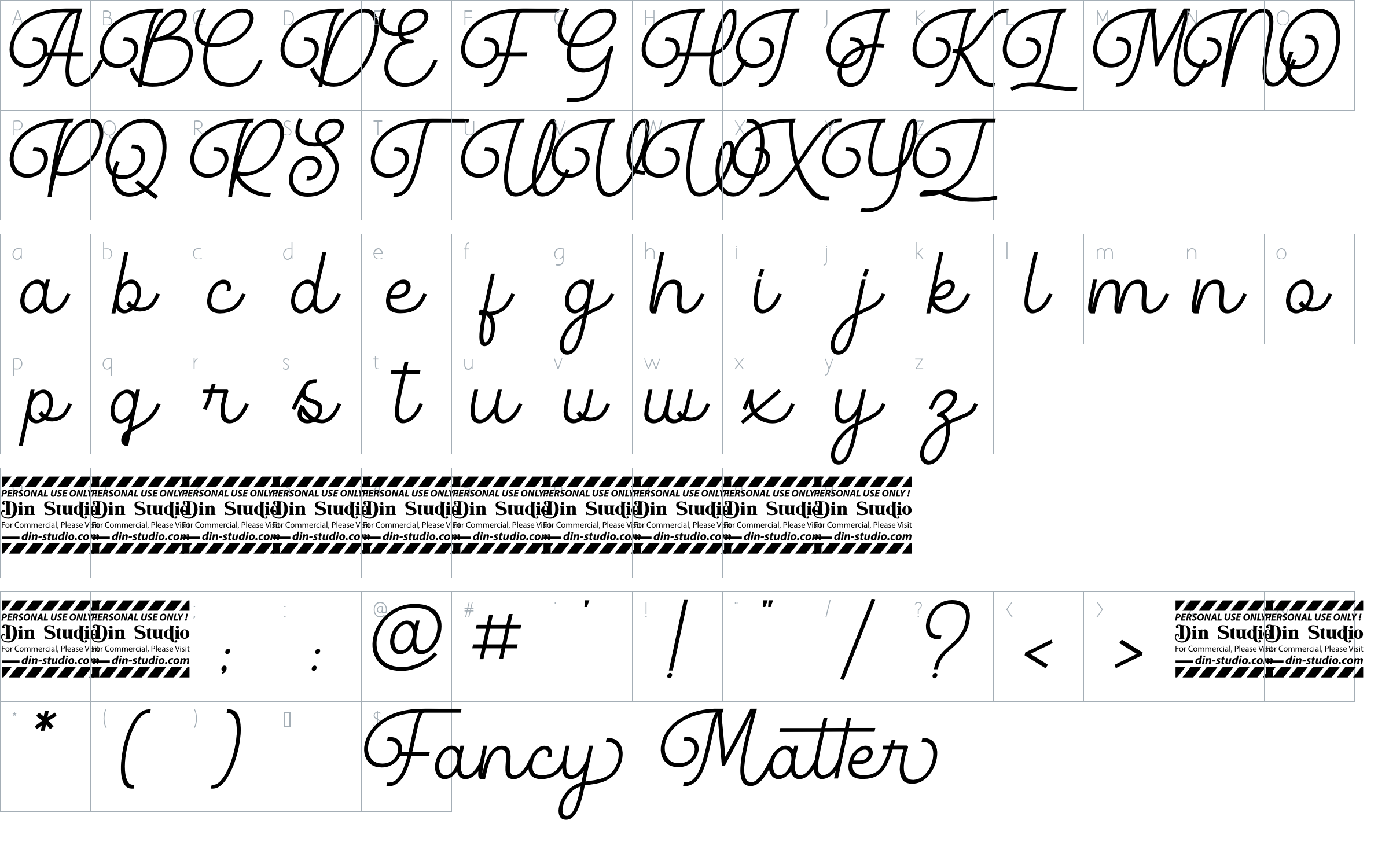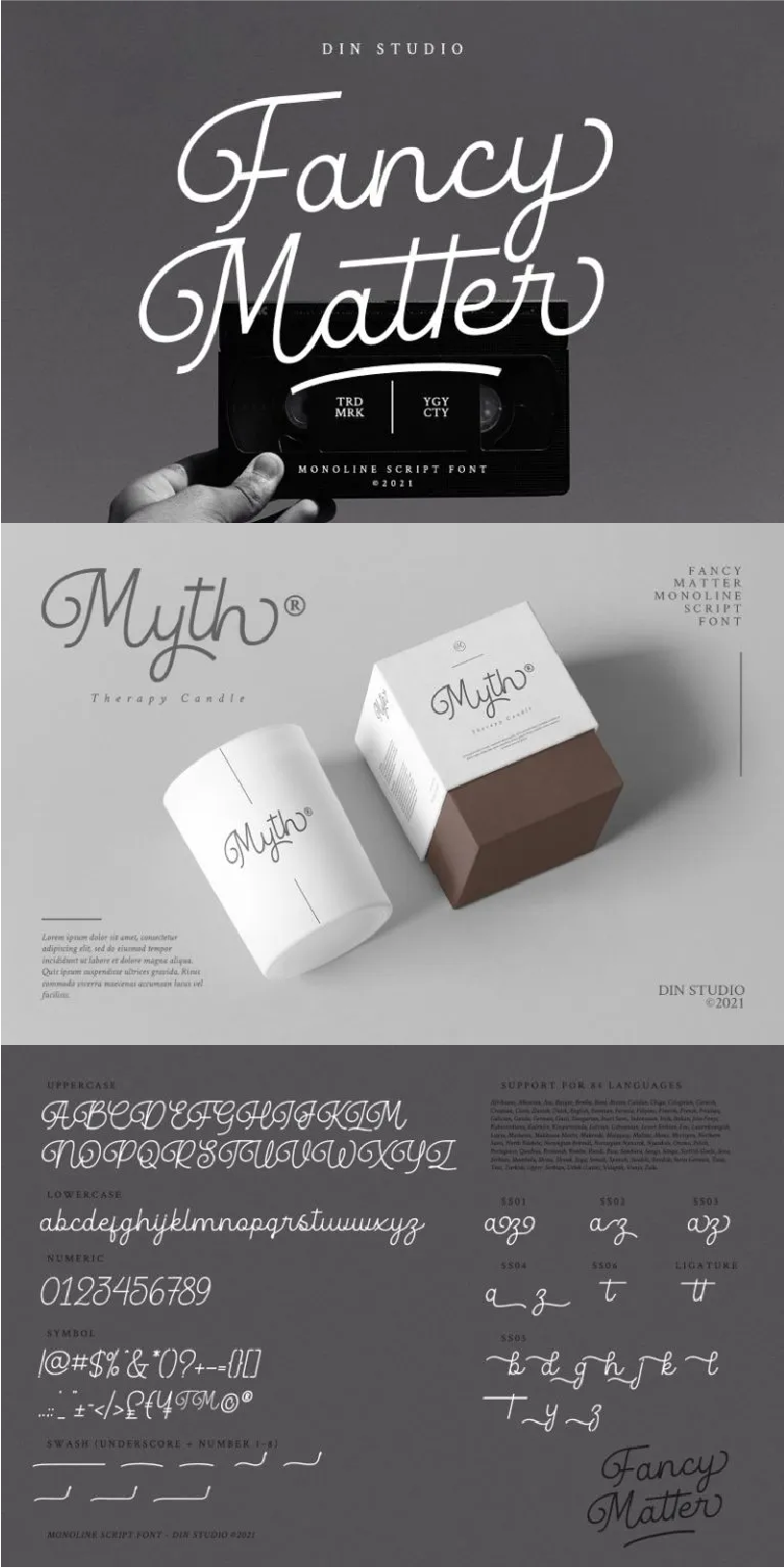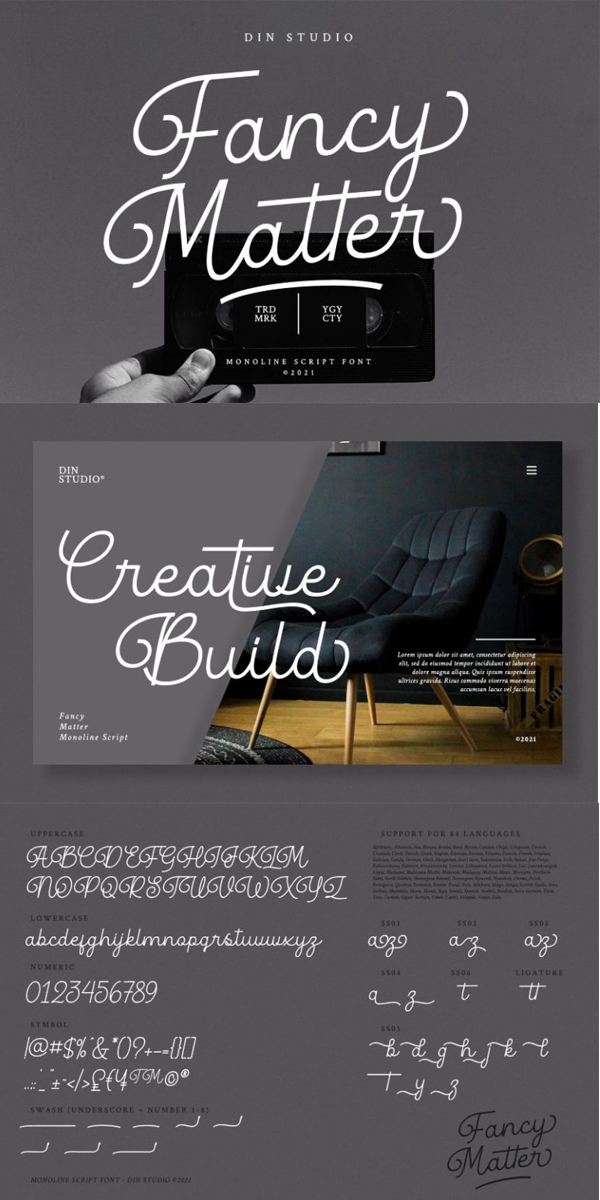
Fancy Matter Font
About Fancy Matter
Fancy Matter – A Monoline Signature Font
A fancy and elegant handcrafted font that create to impress your audience and make your branding shine. Make your projects dance with this elegant and wonderful font wherever you use it. Use it for your headings, logos, ads, printed quotes, packaging, and even your website or social media branding.
Our font always includes Multilingual option to make your branding reach a global audience. See the previews above to get some inspiration on how you can use them.
-Standard Ligature
-Multilingual Support (84 languages)